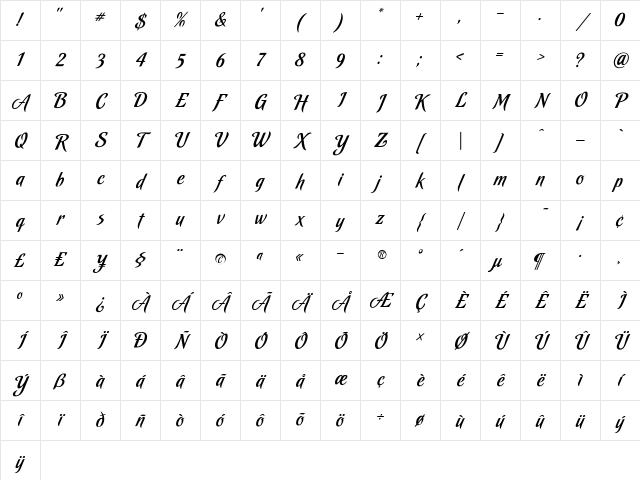
Malbeck Regular
Foundry: Sudtipos. Designed by Angel Koziupa and Alejandro Paul. Buenos Aires, Argentina
Design Context for Malbeck
Malbeck is a composed and adaptable typeface that performs quietly and consistently across a wide range of design contexts.
Who designed the Malbeck Regular font?
This font was published by Sudtipos. Designed by Angel Koziupa and Alejandro Paul. Buenos Aires, Argentina. Check the technical specs section for copyright and designer details.